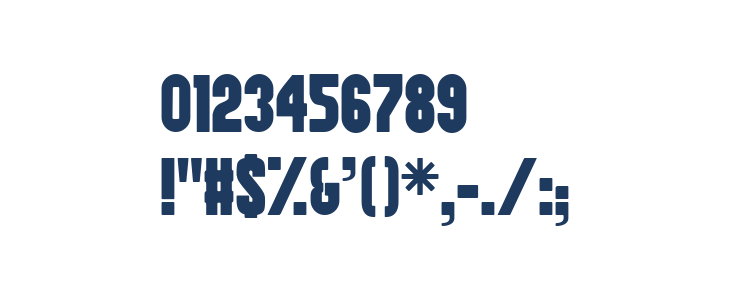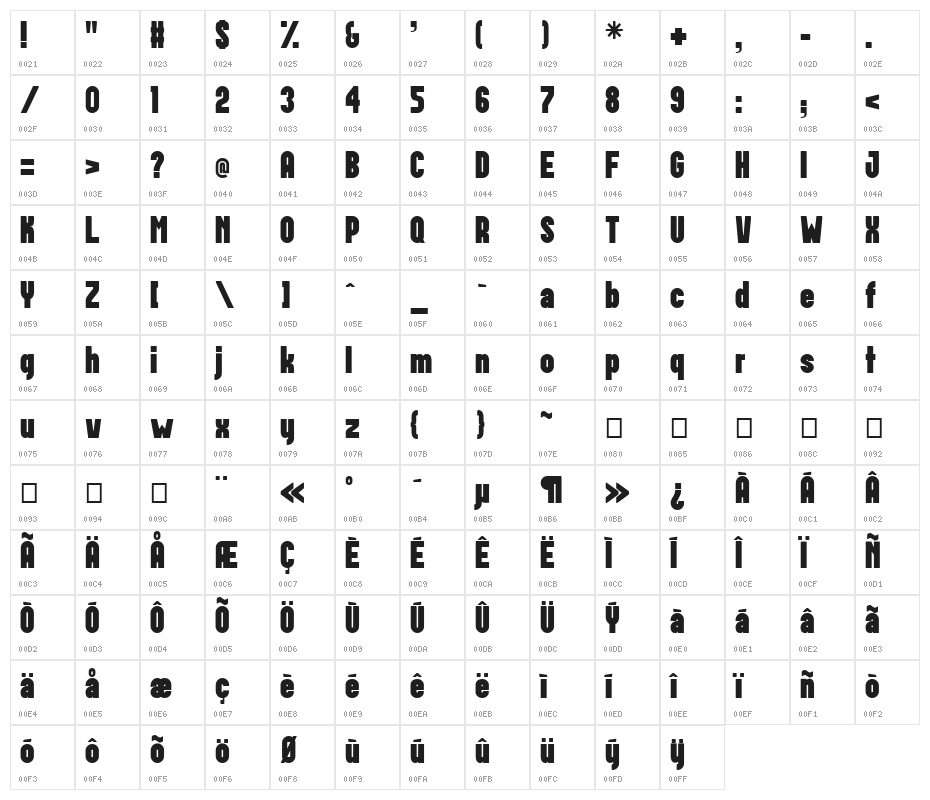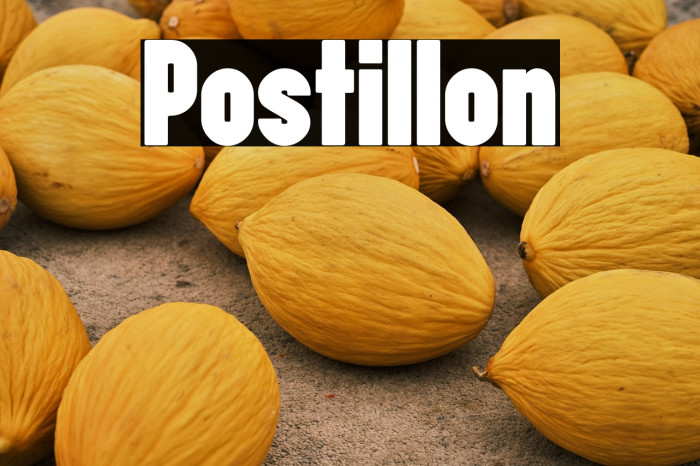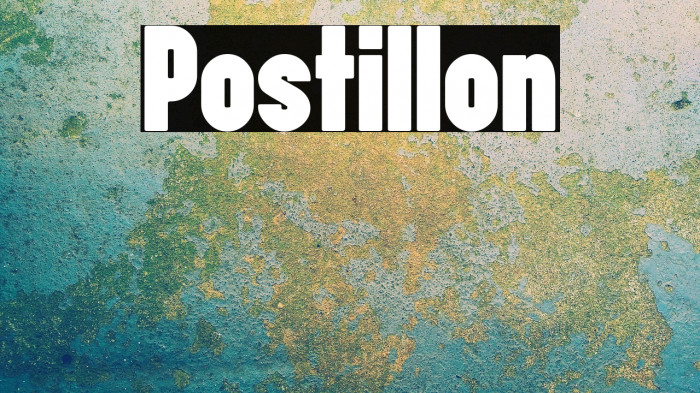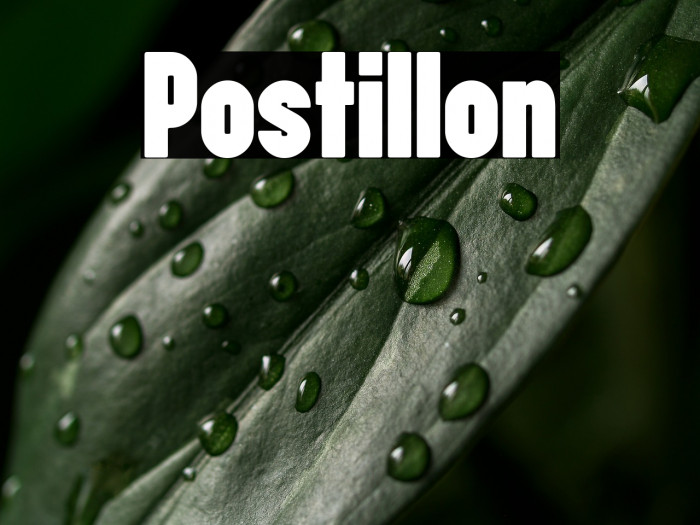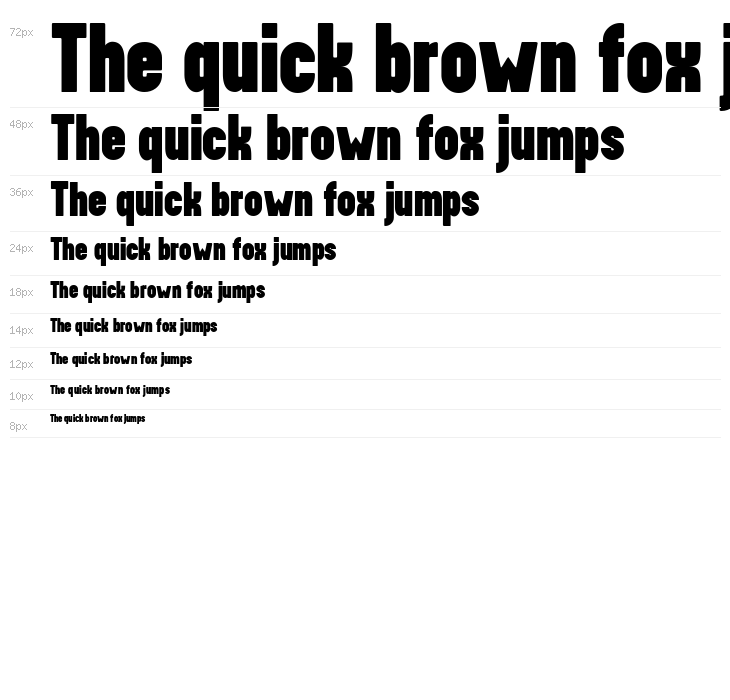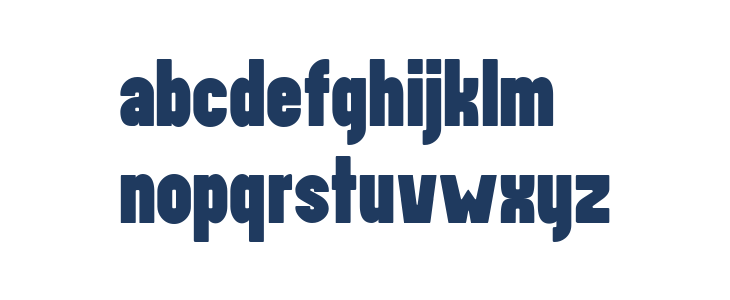
Postillon Font
Postillon Description
This font features a bold and impactful design with thick, uniform strokes that create a strong visual presence. The characters are tightly spaced, enhancing the compact and robust appearance. The uppercase and lowercase letters maintain a consistent weight, contributing to the font's cohesive look. The numerals and special characters are equally bold, ensuring readability and emphasis. The overall style is modern and assertive, making it suitable for projects that require attention-grabbing headlines or statements.
| Proposed Projects | This font is perfect for posters, advertisements, branding materials, and any project that requires a strong visual impact. |